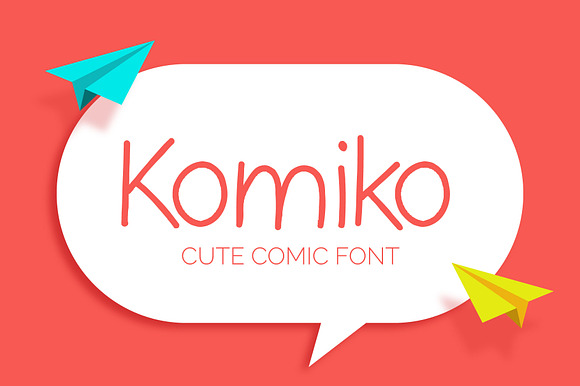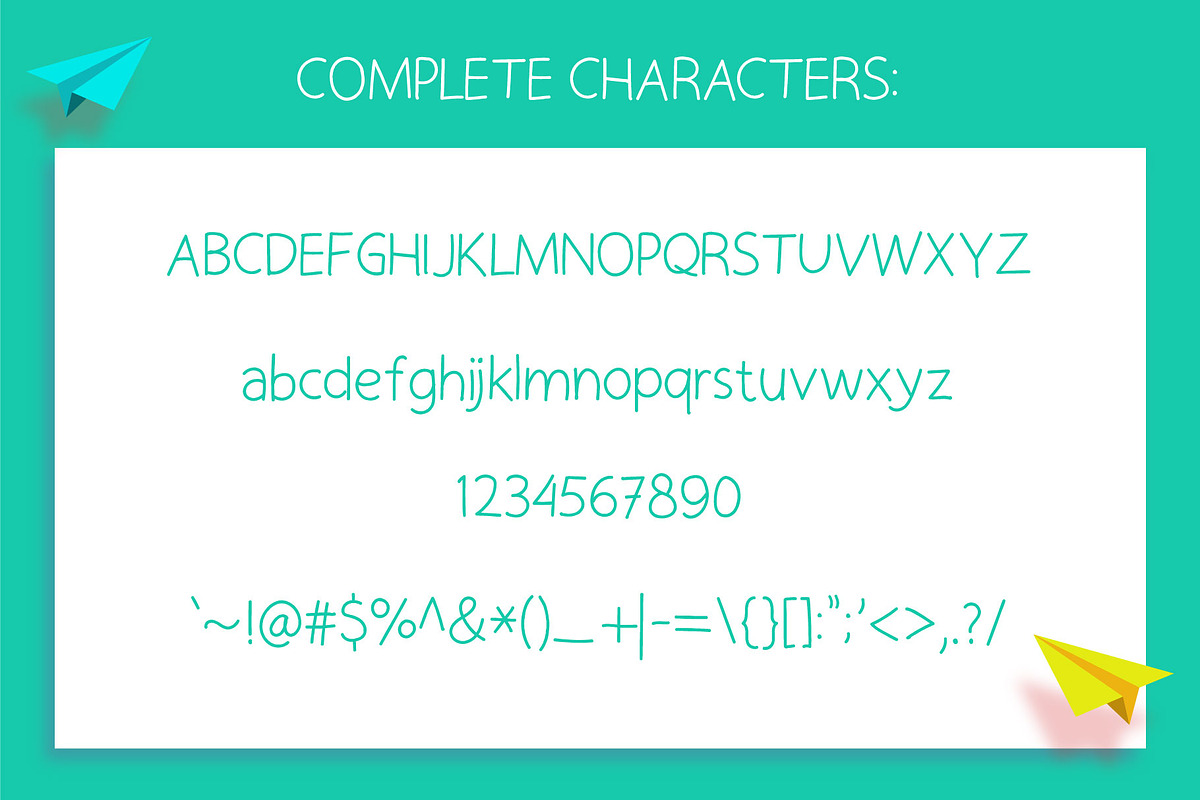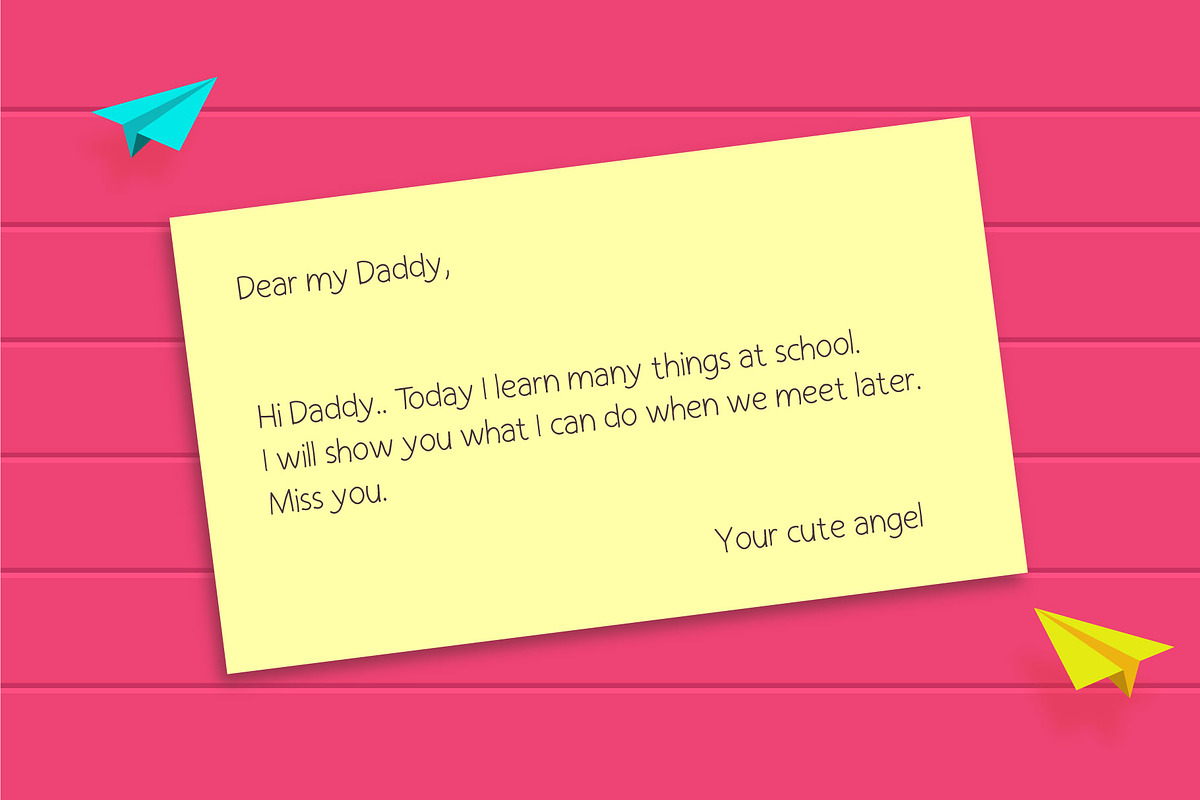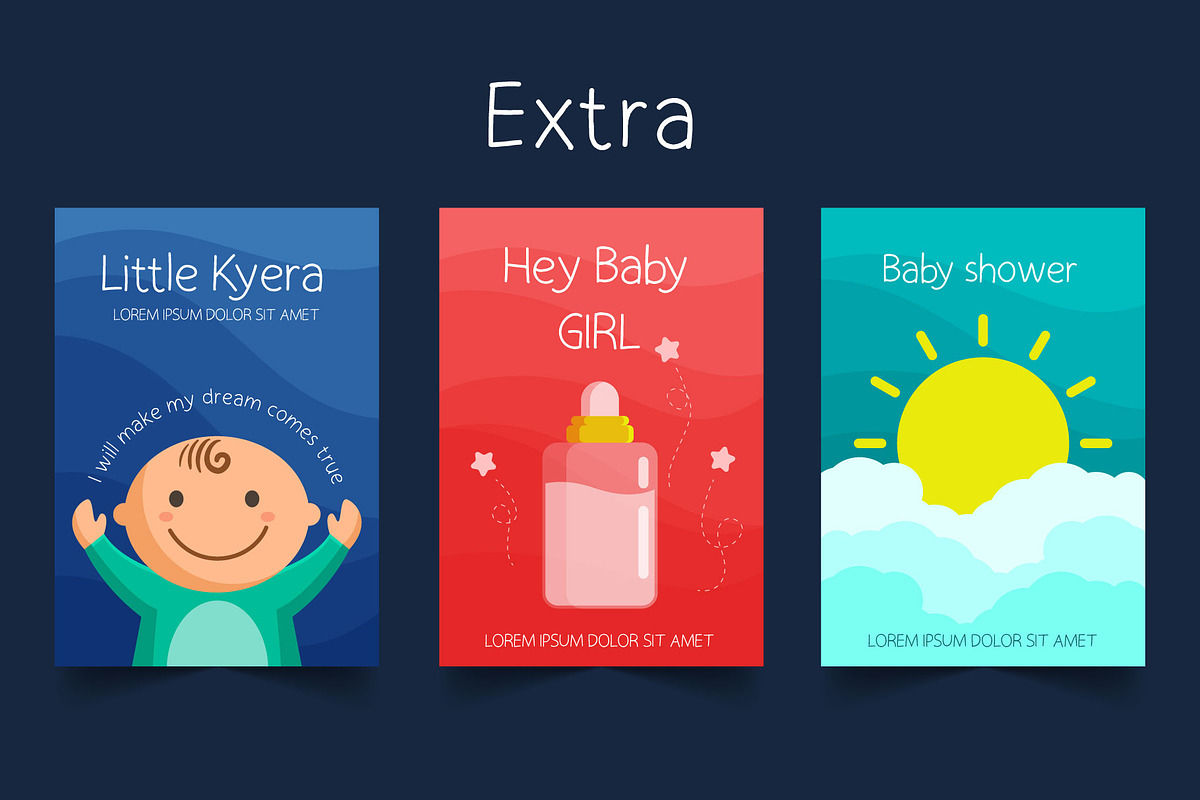
Komiko - cute comic font
Introducing Komiko, a cute comic font that will make your day more cheerful. This font is perfect for you who find a cute hand drawn font. In this package, you also get three extra cute cards. Enjoy Komiko!